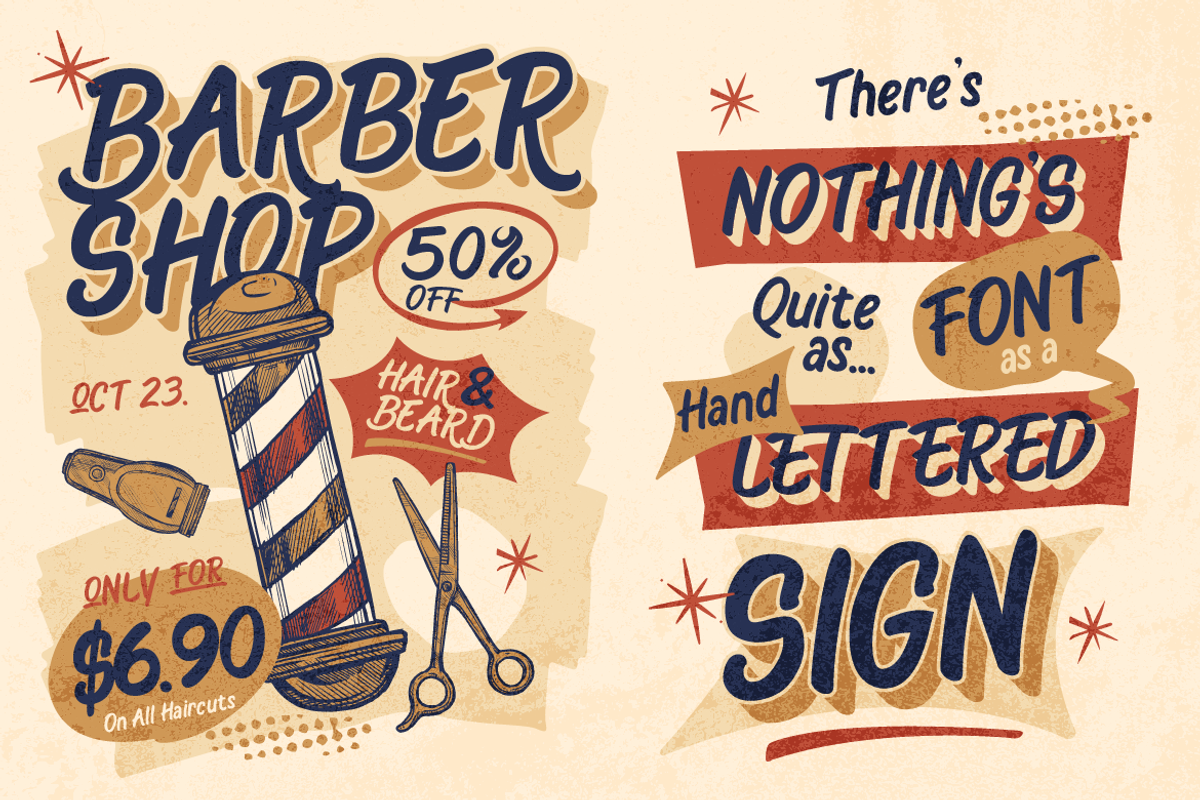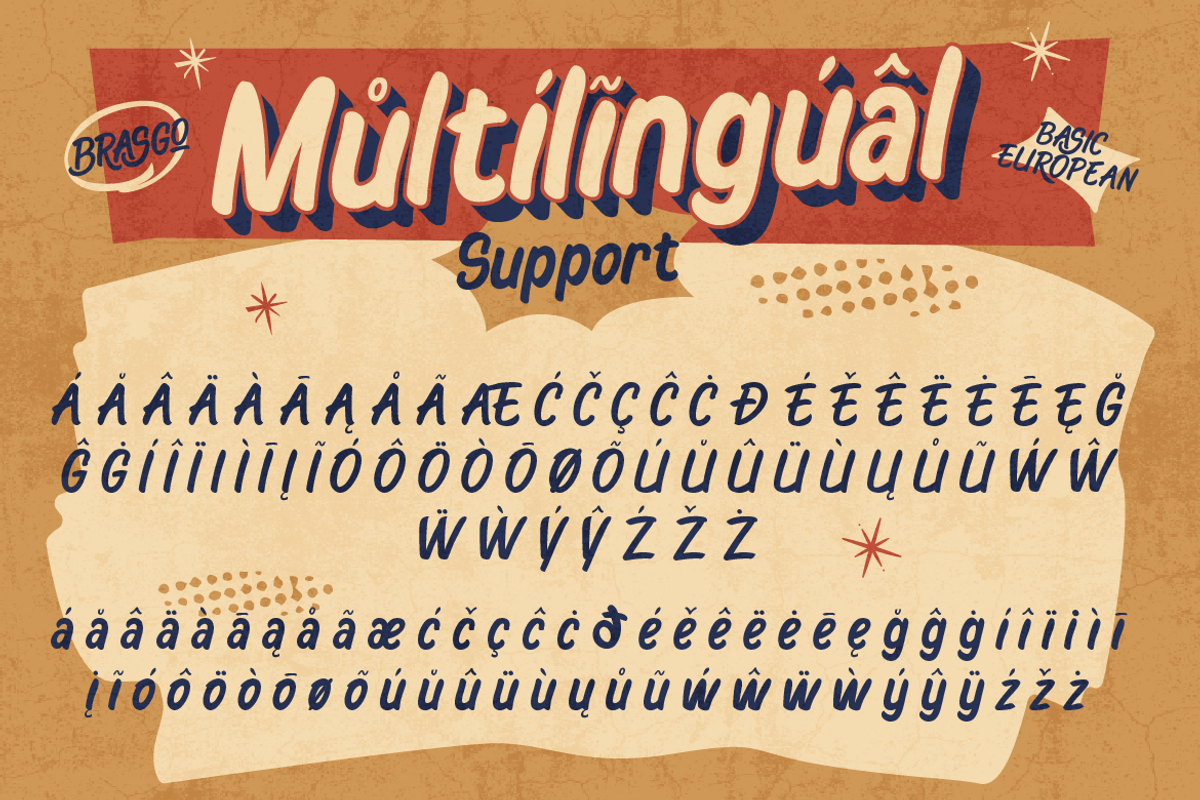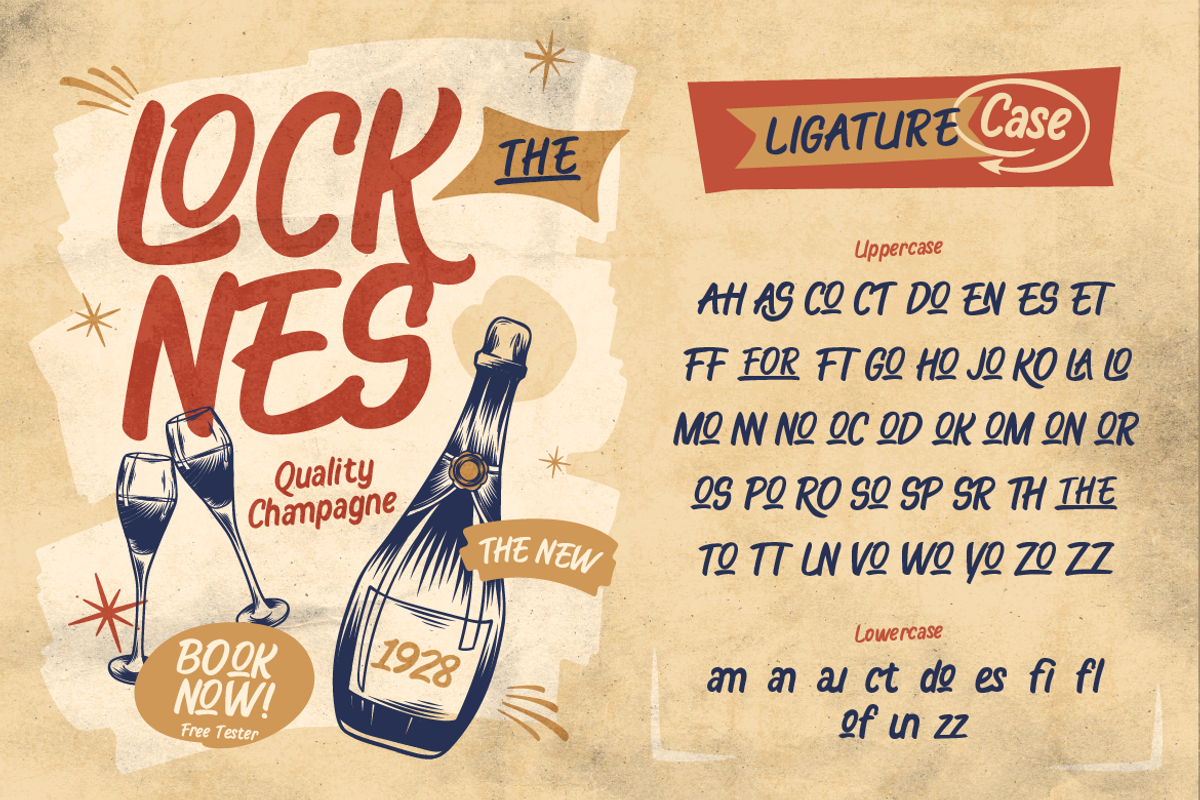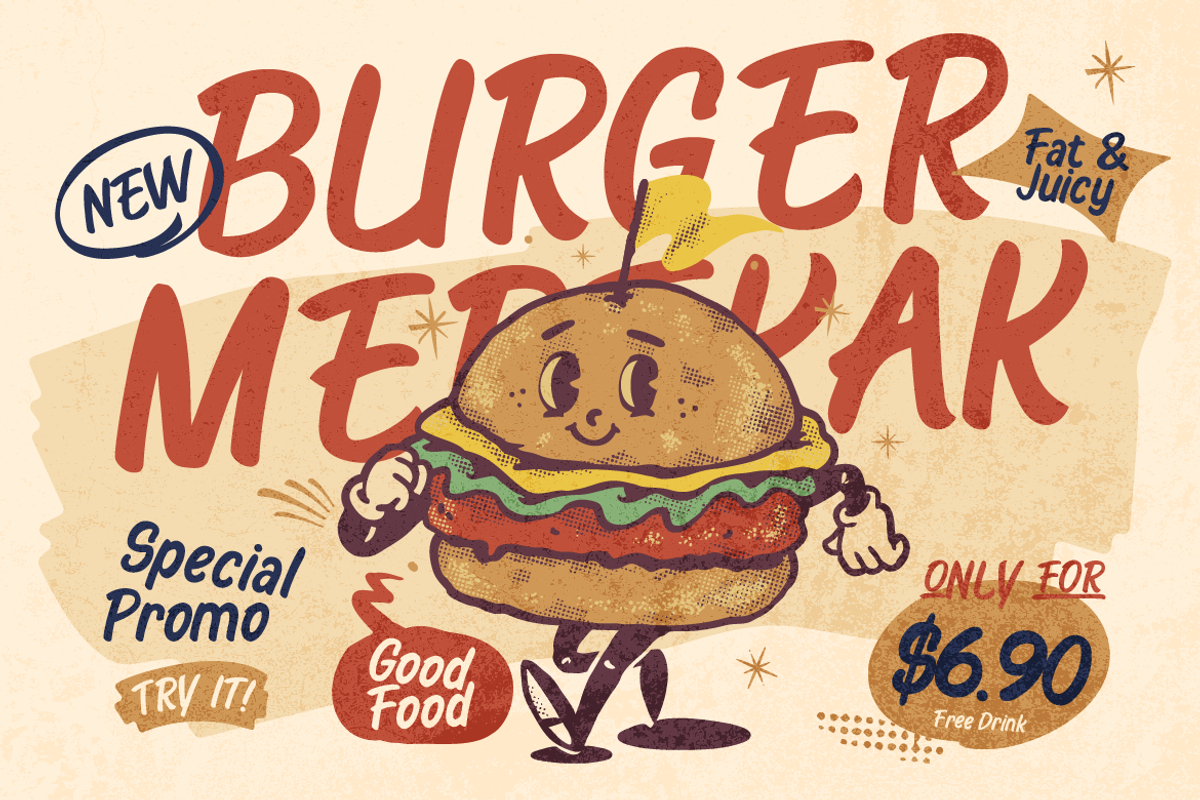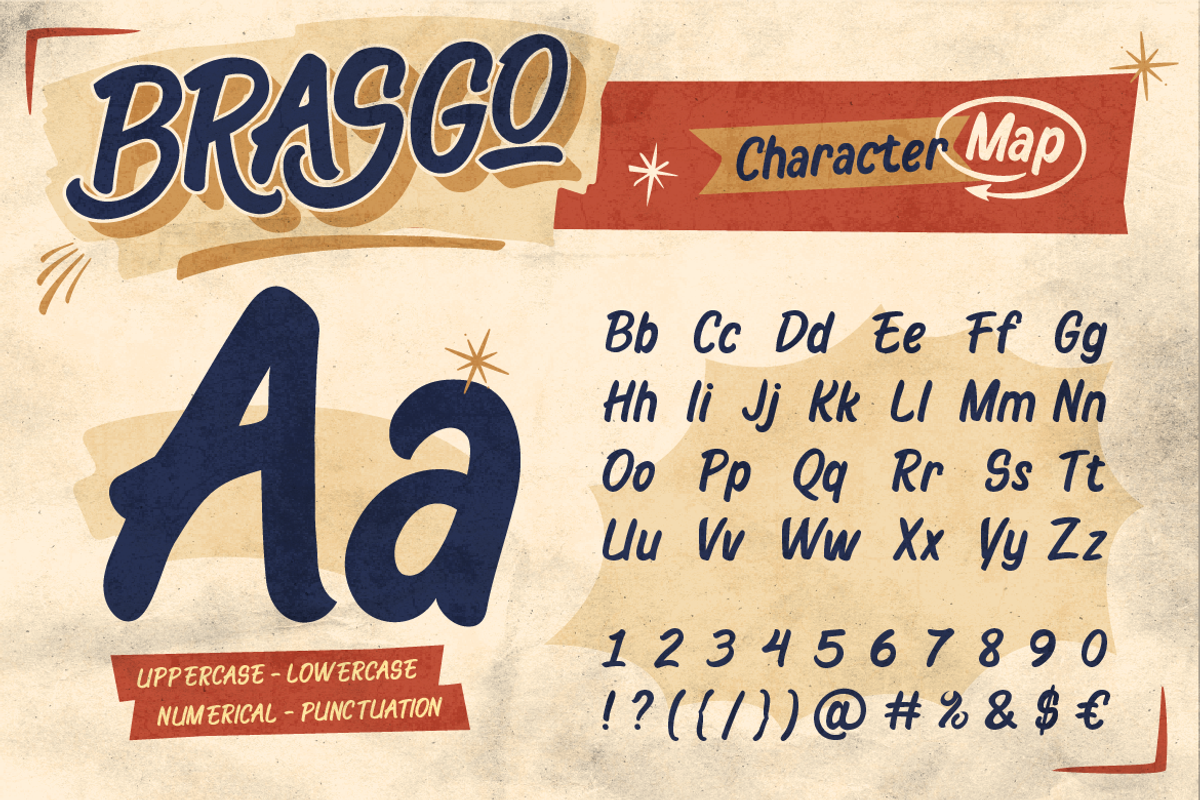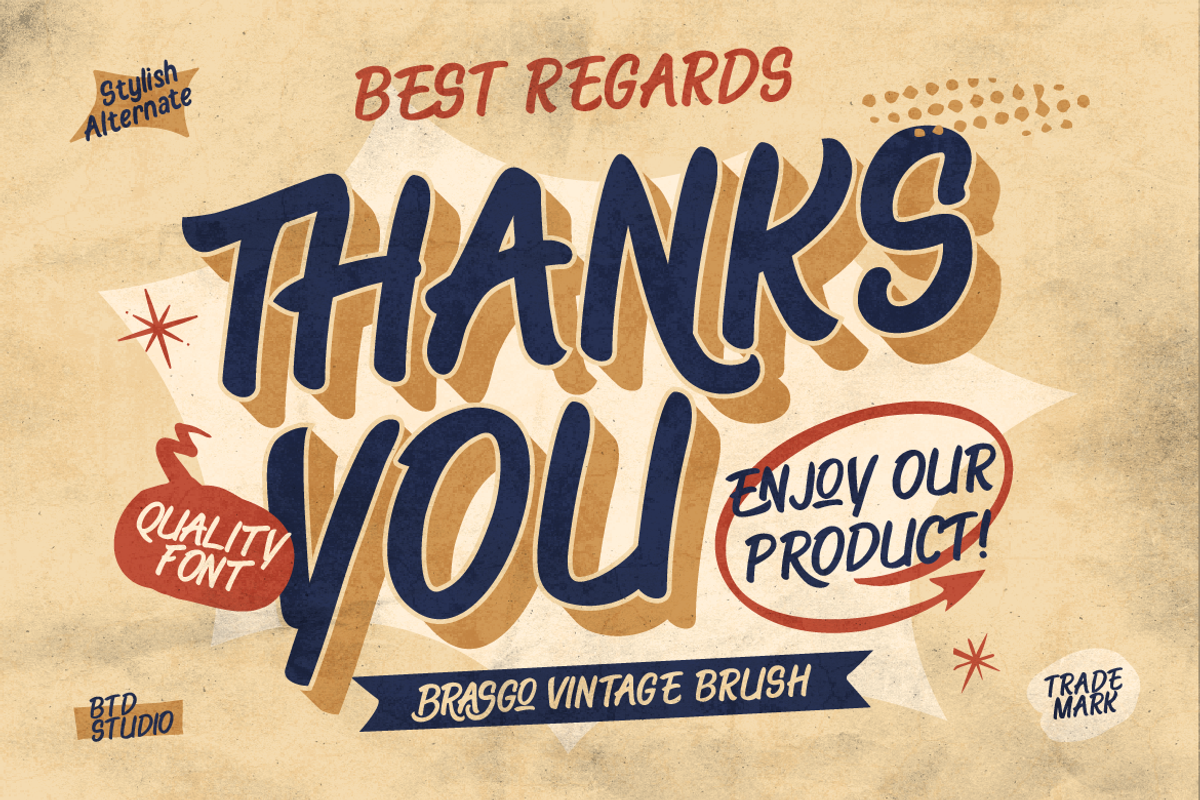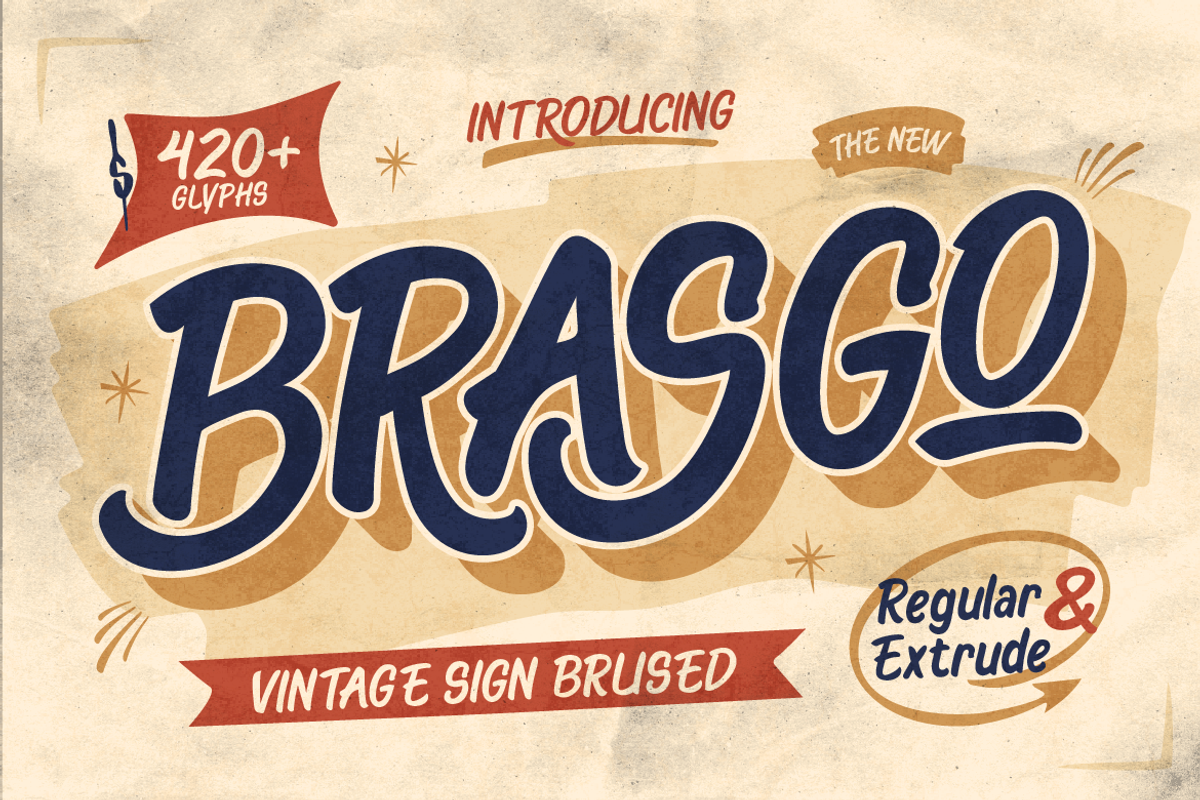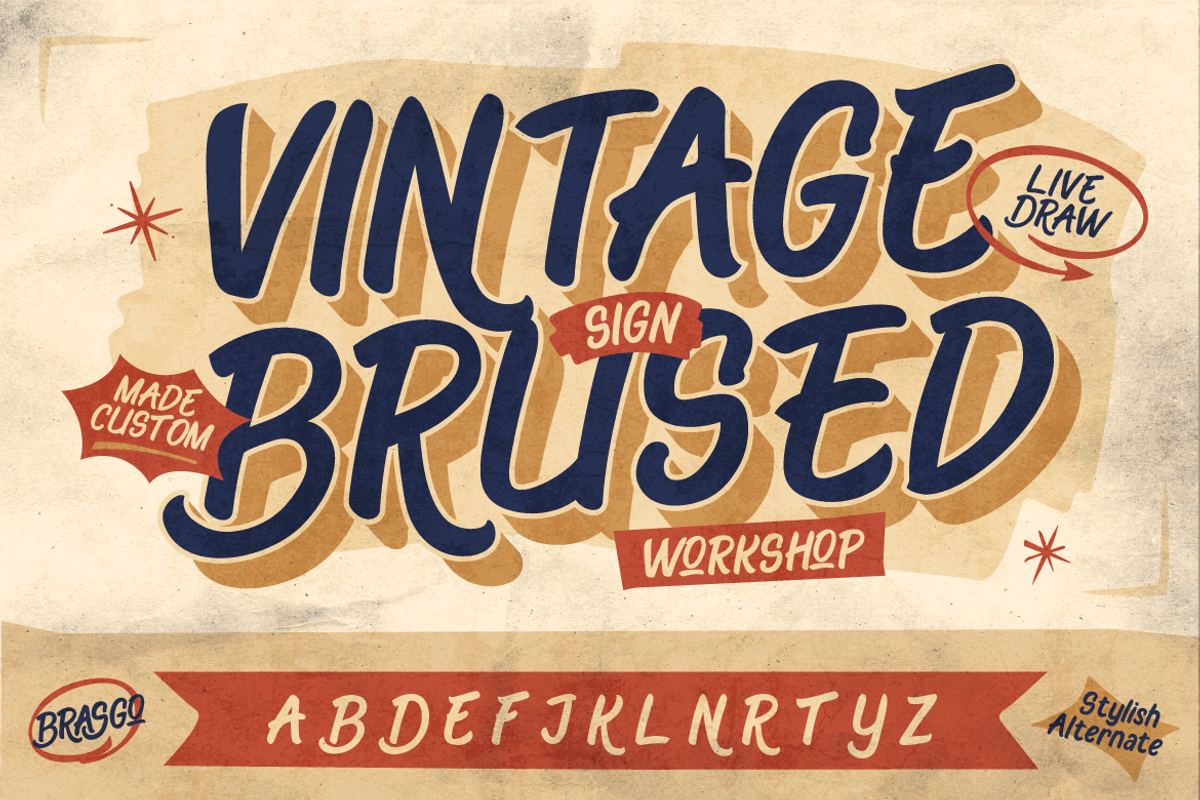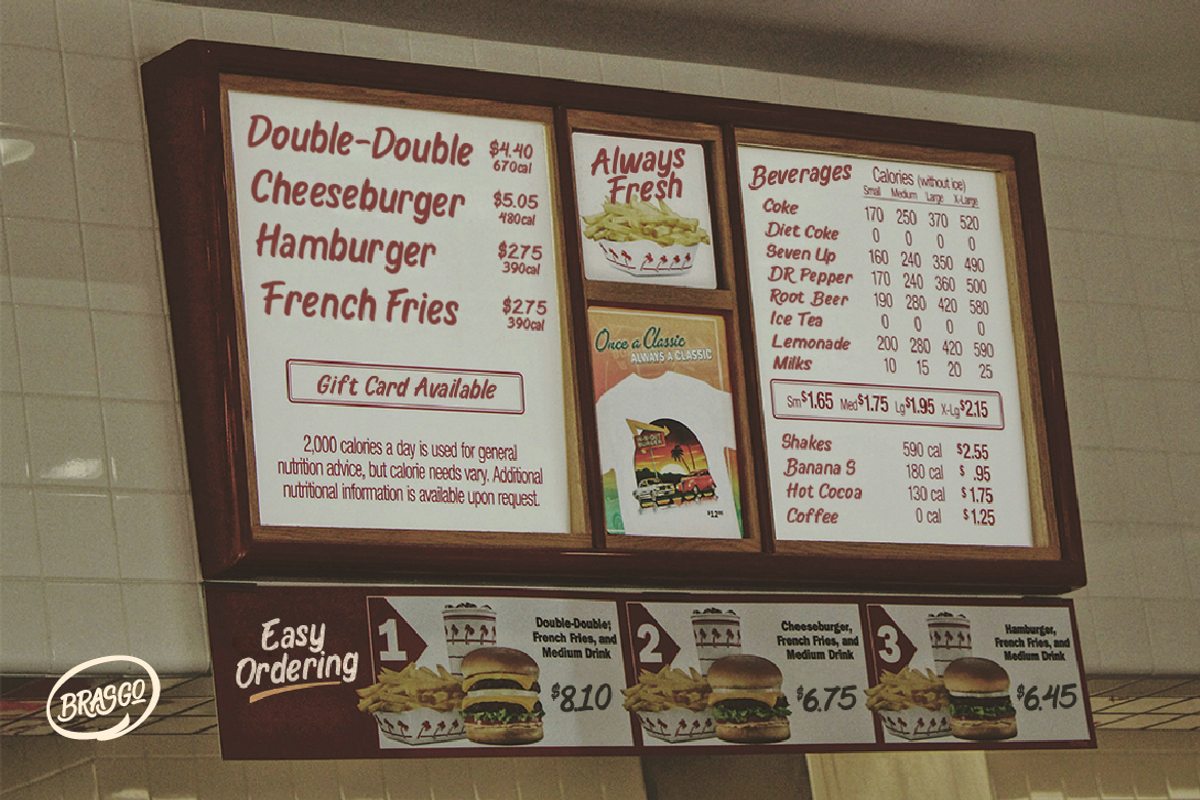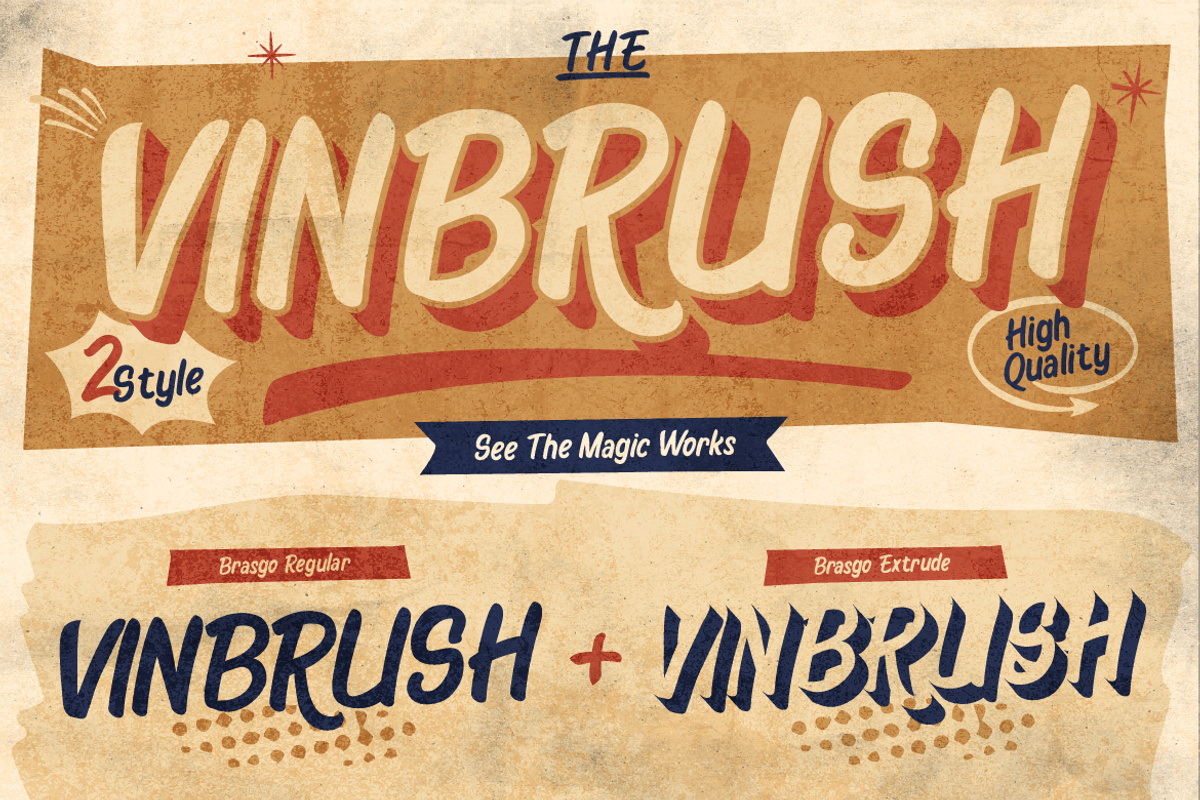
Brasgo
Say hi to Brasgo, a vintage sign brush-style font that brings a perfect mix of classic and vintage vibes! With its thick strokes and slightly wavy look, Brasgo gives off a unique retro feel, taking you back to the good old-school days. This font comes in two styles: Regular and Extrude, making it super versatile for your creative projects. Whether you’re working on branding, posters, invitations, or promo materials, Brasgo will help your designs stand out effortlessly. Plus, with its alternates and ligatures, you get extra creative freedom to craft stunning typography with ease. If you're looking for a fun, vintage-inspired brush font, Brasgo is the way to go! Perfect for Retro & vintage branding, Posters & flyers, Invitations & greeting cards, Merch, apparel, and packaging. Let’s bring back the old-school charm with Brasgo!
- A - Z set (Uppercase & Lowercase)